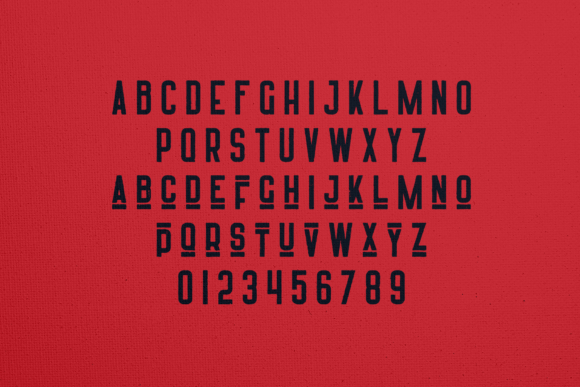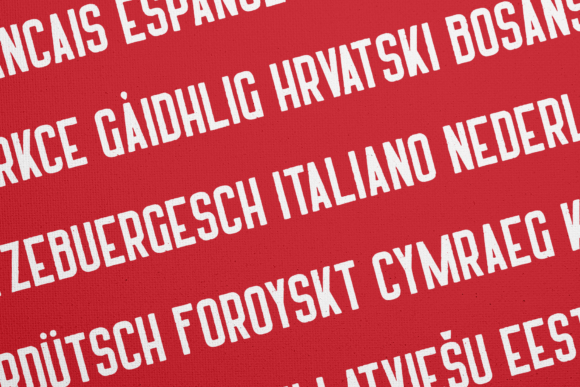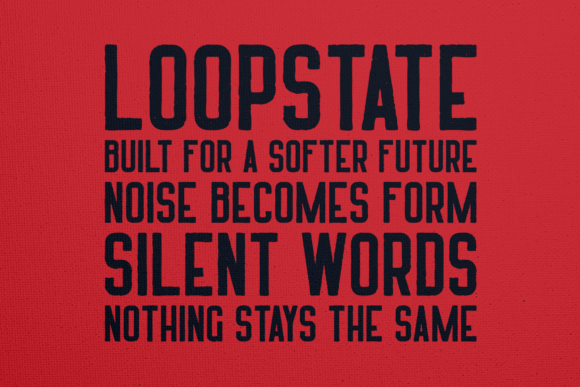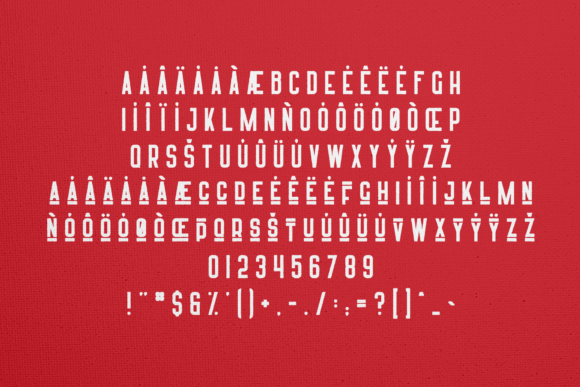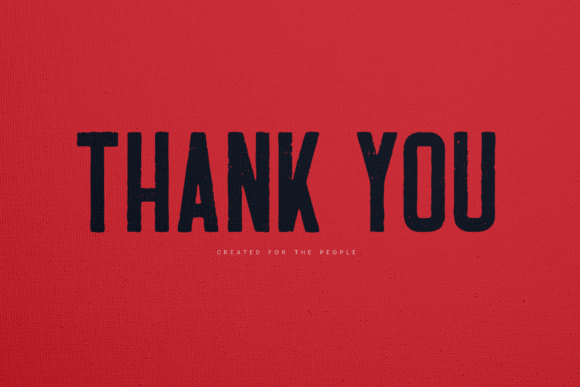
Introducing Harrison Font: The Ultimate Bold Organic Display Font
Are you tired of using the same old fonts that lack character and personality? Look no further than Harrison Font, a bold organic display font that is sure to take your designs to the next level. With its strong handcrafted character, rough edges, and natural texture, Harrison delivers an authentic, human-made feel that works perfectly for powerful headlines, posters, branding, packaging, apparel, editorial layouts, and social media graphics.
A Font that Stands Out from the Crowd
Harrison Font is not your average font. Its unique blend of boldness and organic texture gives it a raw, confident, and expressive tone that is sure to grab attention. Whether you’re a designer looking to add some personality to your work or a crafter seeking to create something truly unique, Harrison is the perfect choice. Its rough edges and natural texture give it a handmade feel that is perfect for creating authentic and eye-catching designs.
One of the best things about Harrison Font is its versatility. It includes uppercase and lowercase letters, numbers, punctuation, and extended Latin characters, making it suitable for multilingual projects. This means that you can use Harrison to create designs in a variety of languages, making it a great choice for designers who work with international clients or want to create designs that can be used globally.
Harrison Font is perfect for a wide range of design applications, including:
- Powerful headlines: Harrison’s bold and confident tone makes it perfect for creating eye-catching headlines that grab attention.
- Posters: Whether you’re creating a poster for a concert, event, or exhibition, Harrison is a great choice.
- Branding: Harrison’s unique character makes it perfect for creating memorable and distinctive brand identities.
- Packaging: Add a touch of personality to your packaging designs with Harrison’s bold and expressive tone.
- Apparel: Harrison is a great choice for designing t-shirts, hoodies, and other apparel items.
- Editorial layouts: Use Harrison to add a touch of personality to your editorial layouts, such as magazines and newspapers.
- Social media graphics: Harrison is perfect for creating eye-catching social media graphics that stand out from the crowd.
Why Choose Harrison Font?
So why choose Harrison Font over other fonts on the market? Here are just a few reasons:
- Unique character: Harrison’s bold and organic texture gives it a unique character that is sure to stand out from the crowd.
- Versatility: Harrison includes uppercase and lowercase letters, numbers, punctuation, and extended Latin characters, making it suitable for multilingual projects.
- Authentic feel: Harrison’s rough edges and natural texture give it an authentic, human-made feel that is perfect for creating designs that look like they were crafted with love and care.
In conclusion, Harrison Font is a bold organic display font that is sure to take your designs to the next level. With its strong handcrafted character, rough edges, and natural texture, Harrison delivers an authentic, human-made feel that works perfectly for powerful headlines, posters, branding, packaging, apparel, editorial layouts, and social media graphics. Its versatility, compatibility with popular design software, and unique character make it a great choice for designers and crafters looking to add a raw, confident, and expressive tone to their work.